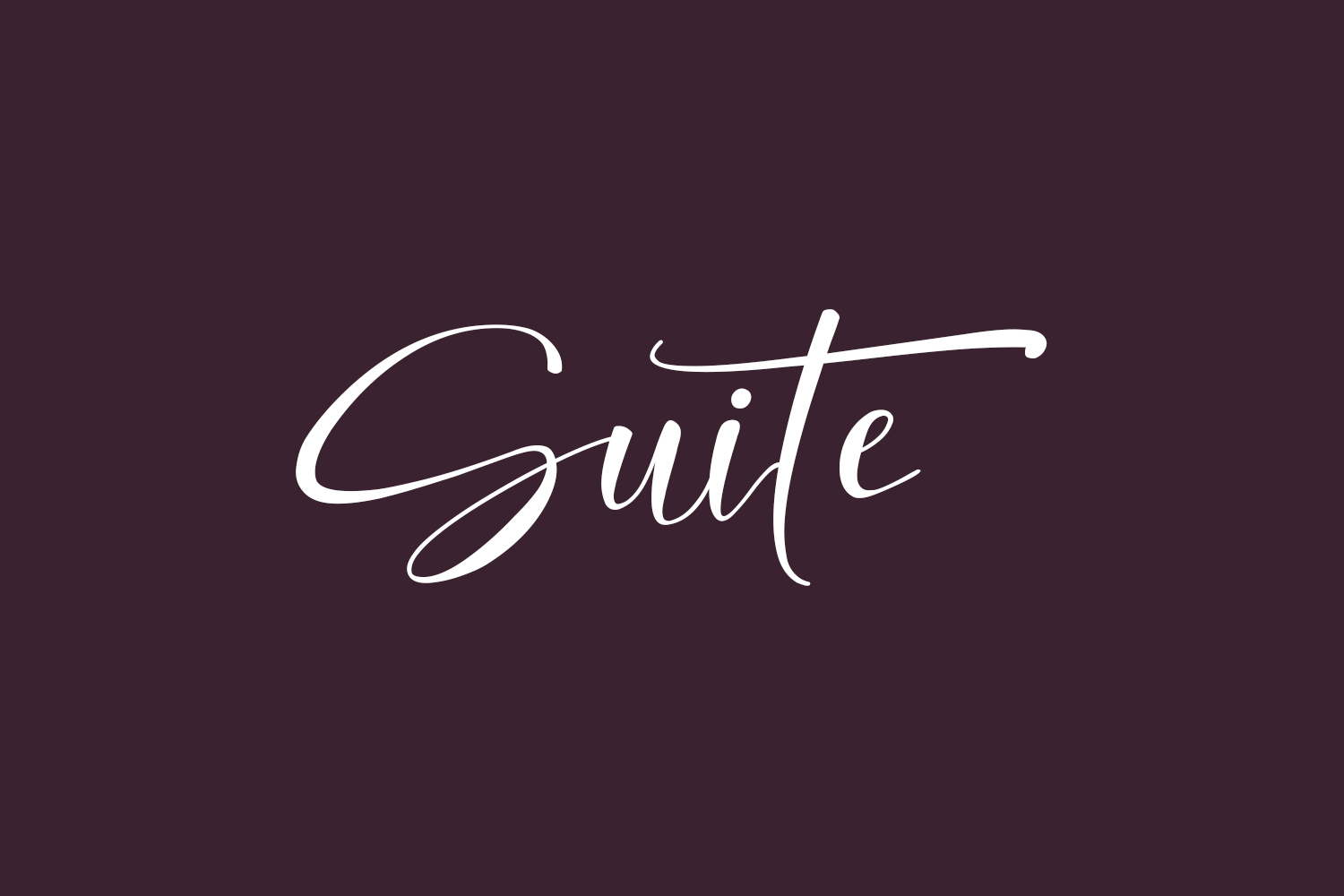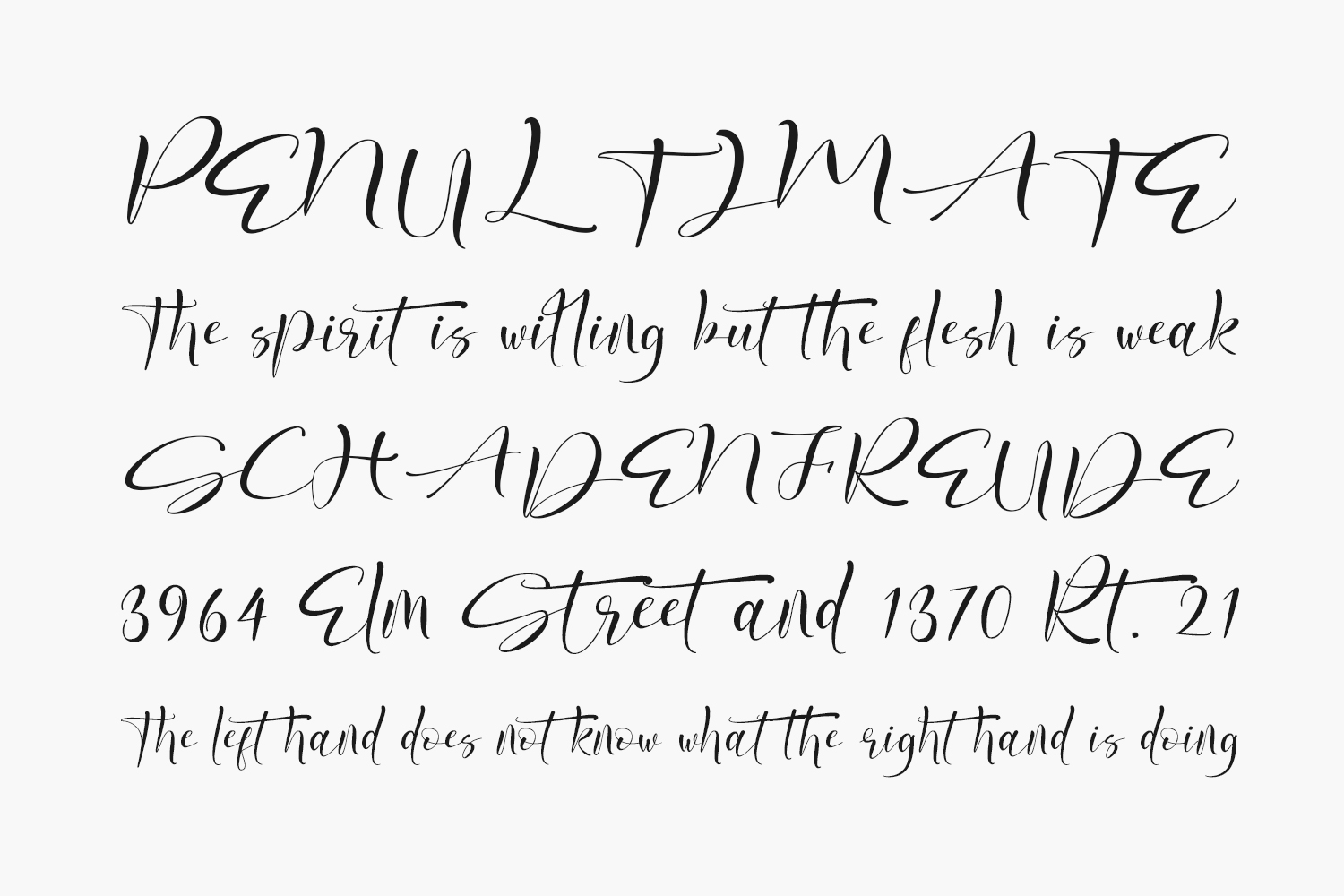
Suite Free Font is a lovely and delicate script font that exudes elegance and class. This font was particularly crafted for those who need a beautiful and refreshing look to their designs. Suite Free Font is free for personal use only. Please purchase the full version for commercial use.